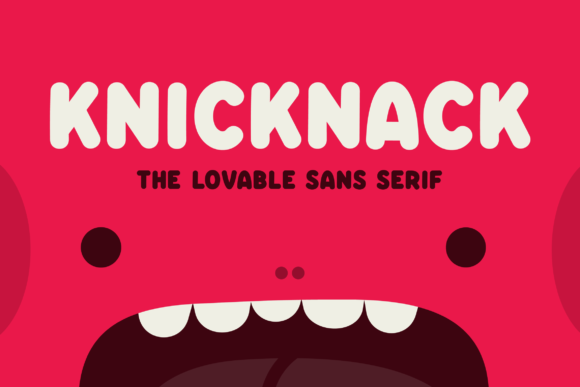
Feast your eyes on Knicknack Font, a delightful and enchanting display font that will add a touch of whimsy and charm to your creative endeavors. Allow this font to carry your imagination to a world where designs are alive with loveable and cutesy appeal, just like the friendly neighborhood ice cream parlor that serves joy in every scoop.
Knicknack Font is the brainchild of the talented daniel.feldt, a renowned typographic artist with a knack for creating fonts that resonate with the hearts of designers worldwide. This font family boasts three distinct styles, each possessing its own unique character, yet united by their shared warmth, smoothness, and rounded edges.
Step into a realm of endless creative possibilities with Knicknack Font. Let your imagination run wild as you craft branded content that exudes personality and charm. Picture a logo that dances playfully across your website, captivating visitors with its inviting aura. Or envision packaging designs that transform ordinary products into objects of desire, thanks to the font's irresistible appeal.
Knicknack Font is not just a collection of letters; it's an invitation to embark on a delightful journey of visual expression. Its playful nature lends itself perfectly to playful and lighthearted projects, such as greeting cards, invitations, posters, and social media graphics. Imagine your words taking on a life of their own, dancing across the page with a mischievous grin, sure to leave a lasting impression on your audience.
But Knicknack Font's versatility extends far beyond the realm of playfulness. Its inherent warmth and smoothness make it an excellent choice for projects that demand a touch of sophistication and elegance. Imagine wedding invitations adorned with Knicknack Font, their delicate curves adding a timeless charm to the momentous occasion. Or envision business cards that exude professionalism and approachability, thanks to the font's inviting personality.
With Knicknack Font, the possibilities are truly endless. It's a font that will elevate your designs, transforming them from ordinary to extraordinary. So, dive into the world of Knicknack Font today and let your creativity flourish like never before!